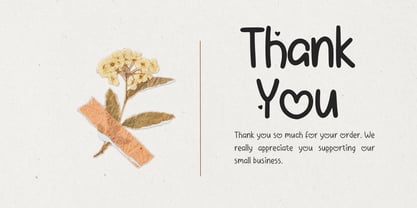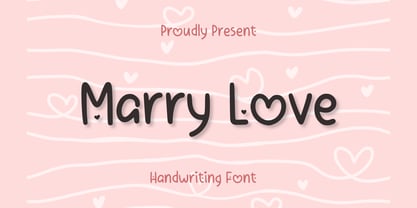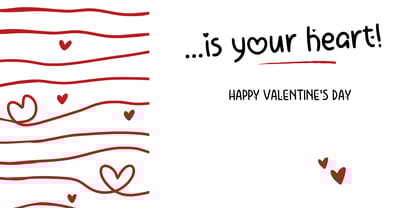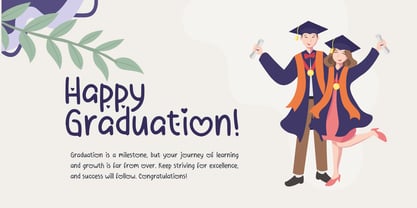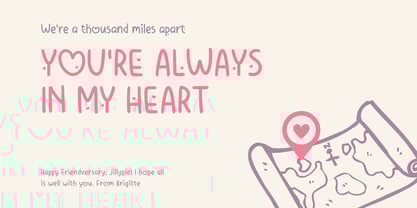
Marry Love
by Aisyah
The Marry Love Font Family was designed by Nur Aiysah Amalia and published by Aisyah. Marry Love contains 1 styles. More about this family
Presenting Marry Love, a charming and endearing handwriting font, embraced by a spark of heart shapes design. Ideal for enriching your invitation, elevating your creative project, or enhancing your crafting endeavors. This font also elegantly promotes any business, offering a cuteness and distinctive touch. Marry Love is more than a font – it signifies creativity, love, and engagement. Let Marry Love carry your words with grace, bringing your projects to life with its enchanting character and irresistibly adorable appeal.